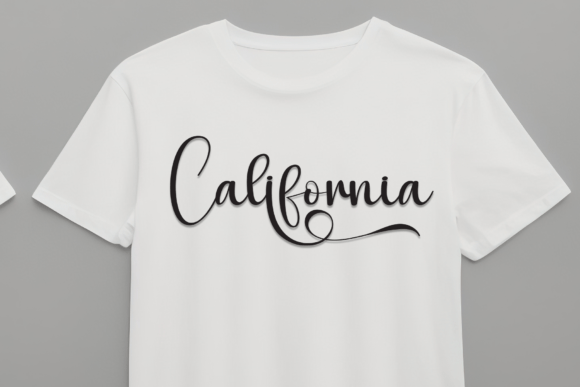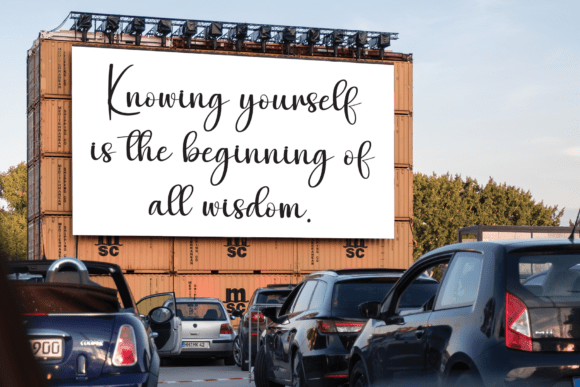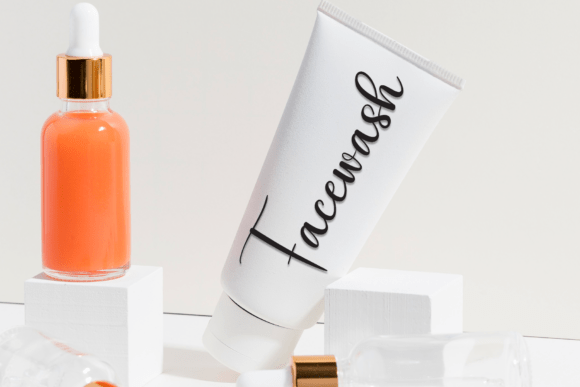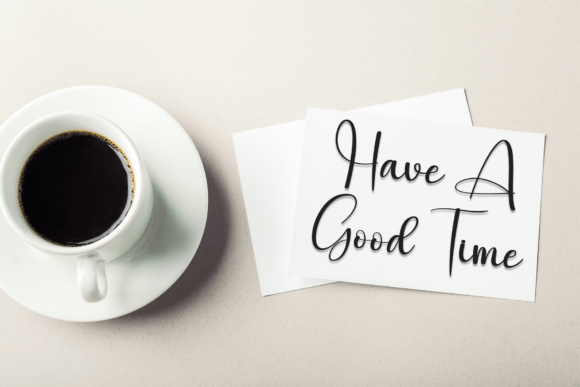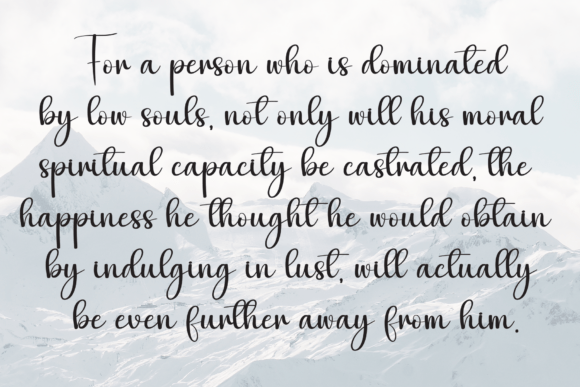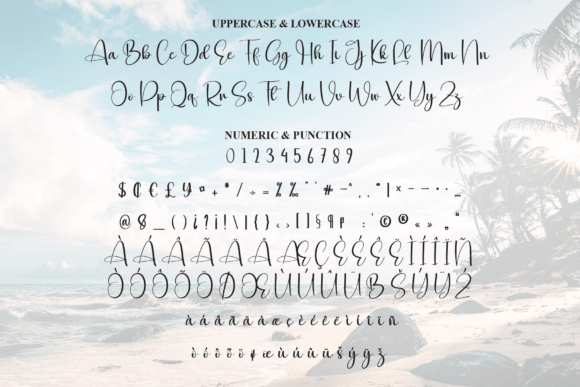
The Perfect Touch: Unveiling Beautiful Font
Have you ever stared at a blank page, struggling to find the right words to express your creative vision? You’ve got a clear idea, but the typeface just doesn’t seem to match the tone you’re going for. That’s where Beautiful Font comes in – a stylish handwritten script font that combines elegance with a modern flair.
With its flowing strokes and organic curves, Beautiful Font adds a personal, refined touch to any project. Whether you’re designing a brand, creating an invitation, or crafting social media content, this typeface brings warmth and sophistication to the table. As a designer, you know that the right font can make all the difference in conveying your message and leaving a lasting impression. That’s why Beautiful Font is a valuable addition to any design toolkit.
Key Features of Beautiful Font
- Unique Characteristics: Features a unique blend of modern and elegant design elements, making it perfect for both digital and print media.
Designer Review: Beautiful Font
First off, I think Beautiful Font is a great addition to any designer’s toolkit. The ✨ligatures are a game-changer – they add a level of sophistication to any text-based design. I’ve used them in a few projects and the results have been amazing. The font also has a ✨high level of customization, allowing me to tweak the spacing and size to fit any design.
One of the things I appreciate most about Beautiful Font is its ✨versatility. It’s perfect for both digital and print projects, and the ✨webfont versions make it easy to integrate into any website.
- ⚠️Some of the characters can be a bit tricky to read, especially at small font sizes. I’ve had to adjust the font size or use a different font in certain cases.
- ⚠️The font can feel a bit overly ornate for some projects, and I’ve had to tone it down to fit the design.
Overall, I’m really impressed with Beautiful Font. It’s a solid choice for any designer looking to add some flair to their text-based designs. With a little practice and patience, the limitations can be worked around, and the results are well worth it.
Beautiful Font is ideal for:
- Designing elegant headlines and titles
- Creating professional-looking resumes and business documents
- Adding a touch of sophistication to social media graphics and blog posts
Compared to Beautiful Font, Open Sans has a more minimalist feel and is designed specifically for digital interfaces. While Beautiful Font has a softer, more elegant appearance, Open Sans excels in readability and versatility.